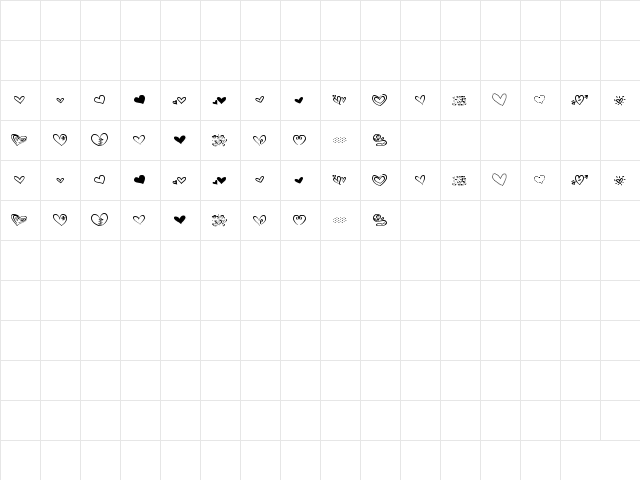
MTF Heart Doodle Regular
| Designer | Tiina Raparanta |
Design Context for MTF Heart Doodle Typeface
MTF Heart Doodle is a composed and adaptable typeface that performs quietly and consistently across a wide range of design contexts.